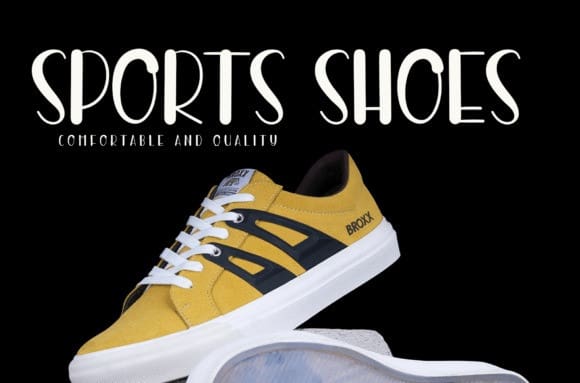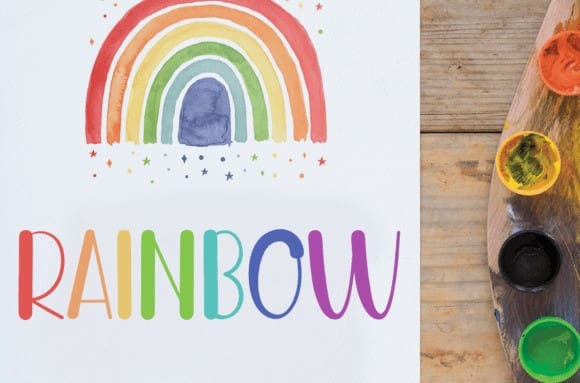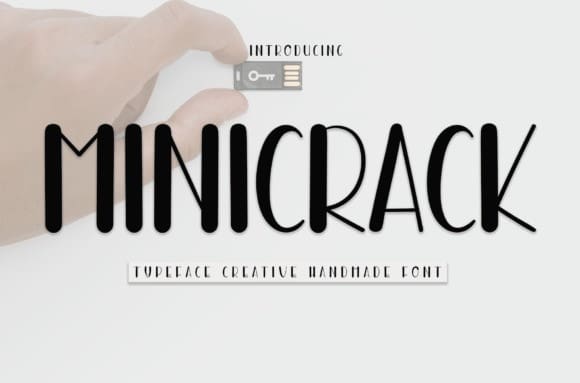
Minicrack Playful Font
Minicrack Playful Font is a sweet and friendly handwritten font. Fresh and neat, this font is ideal for writing wedding invitations, cards, or any other design that might need a fun touch!